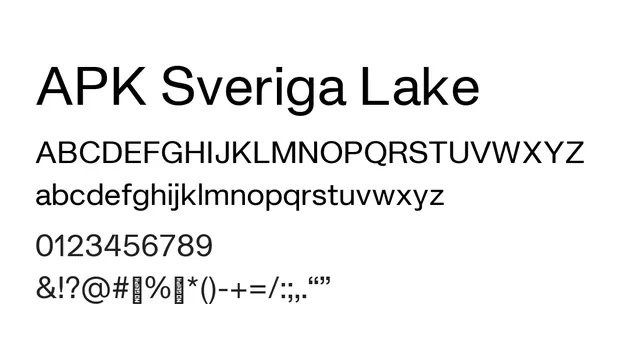
APK Sveriga Lake
APK Sveriga Lake, modern, clean
Geometric sans with subtle humanist influences, offering warmth and sophistication in a contemporary package.
Works for editorial design, lifestyle branding, and UI with a slightly more refined aesthetic than pure geometric sans. Suitable for both display and body text.
Complements serif pairing like Crimson Text for editorial, or stands alone in branded environments.